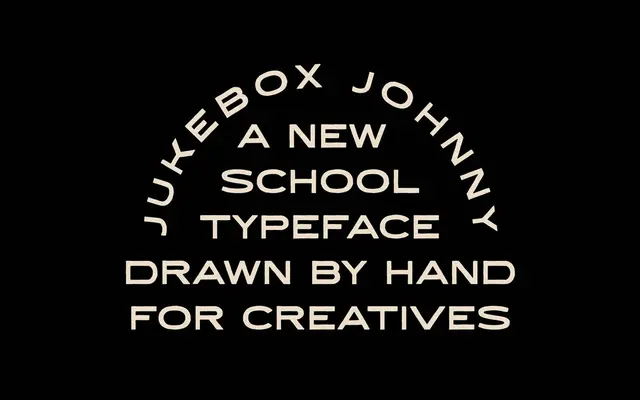
Jukebox Johnny
Jukebox Johnny specimen from Taylor Penton
A wide-set display sans with soft curves and vintage character, sold as a single commercial licence for $25.
Wide proportions and gentle curves give it a laid-back, mid-century quality without leaning into pastiche. Available in one weight as OTF, WOFF and WOFF2 files, with basic Latin coverage and a limited set of accented characters across 151 glyphs. Positioned for headlines, packaging and branding work where a relaxed retro feel is wanted.
A wide-set, single-weight display sans with soft curves and vintage character, suited to headlines and packaging rather than continuous text. Its retro inflection and limited weight range place it firmly in the display category.